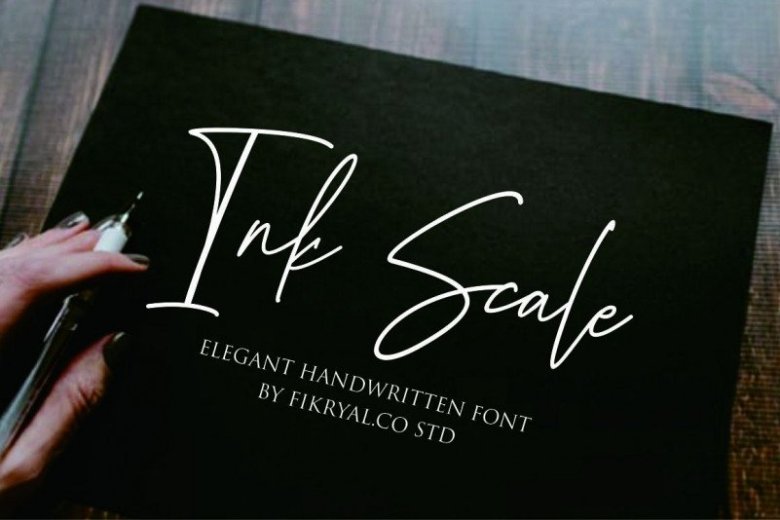
Ink Scale Handwritten Font
Hello Guys! Introducing Ink Scale Font, This is a modern signature font. This font was designed by handwriting, and it has a modern and unique forms of signature, the writing style is very natural. It is design and shared by fikryal. It’s a new modern & stylish handwritten font. Ink Scale Handwritten is Perfect for logo,branding, invitation, tittle, wedding designs, social media posts, advertisements, product packaging, product designs, label, photography, watermark, special event,magazine,web design,etc.